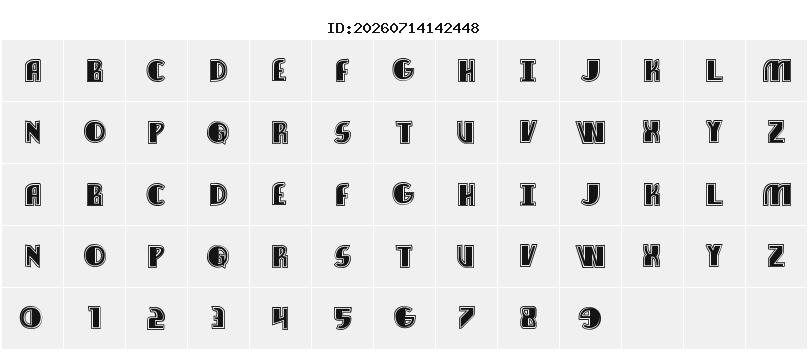
Jazz Club Preview
• Font Name: Jazz Club
• Full Font Name: Jazz Club
• Version: Version 1.00 March 22, 2015, initial release
• Designer: Woodcutter Manero
About Jazz Club.ttf
Jazz Club.ttf is a modern, elegant sans-serif font designed for ultimate readability and visual harmony. Perfect for branding, headlines, web design, and print materials.